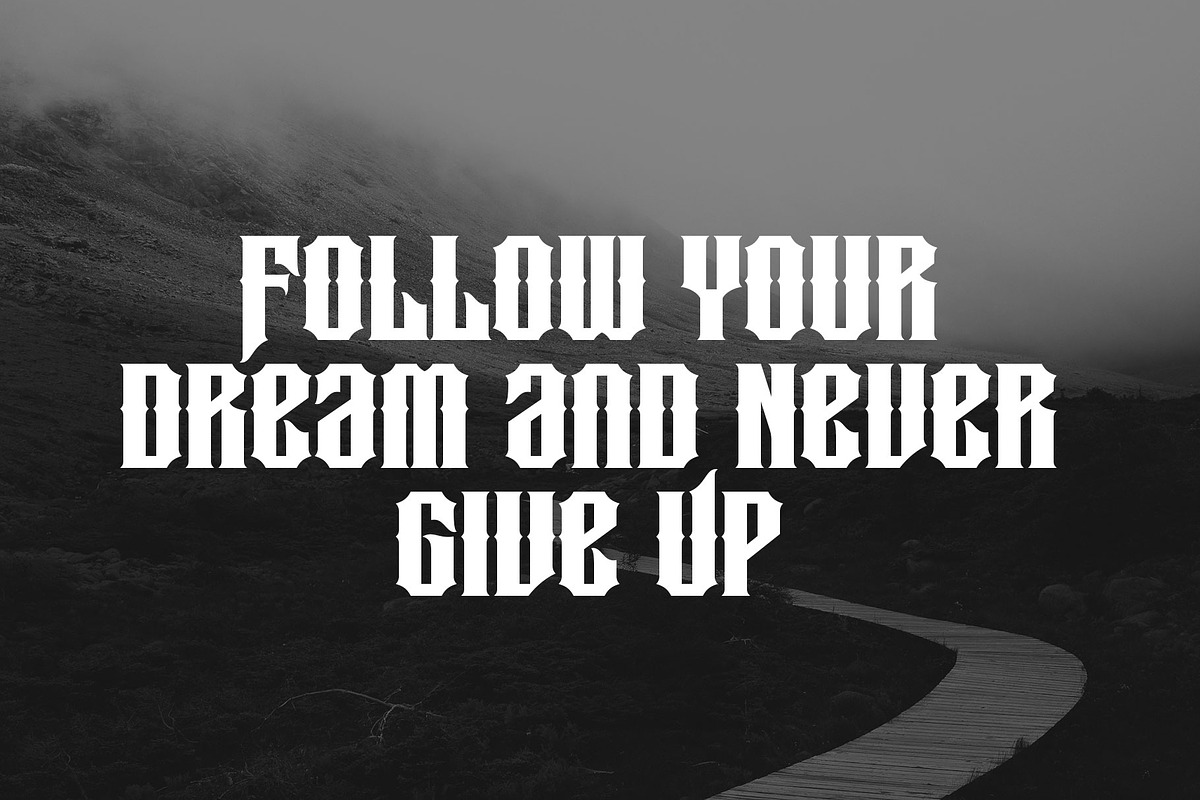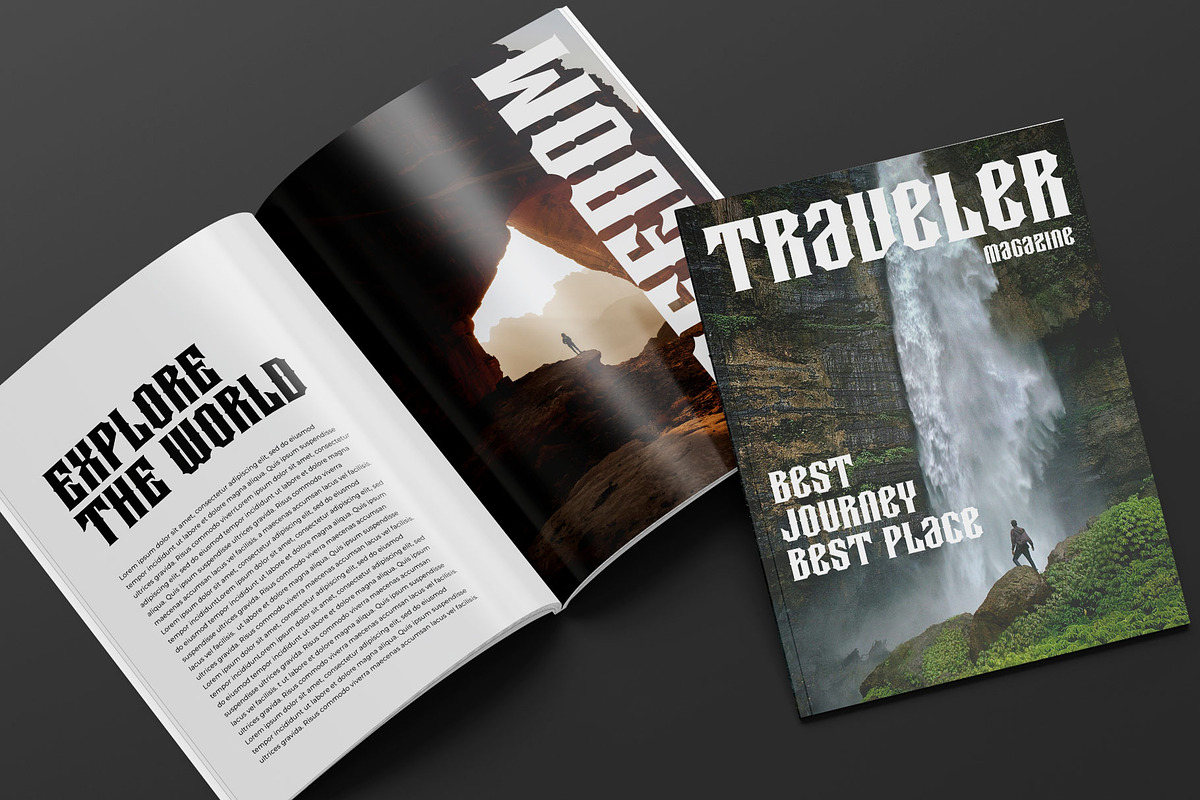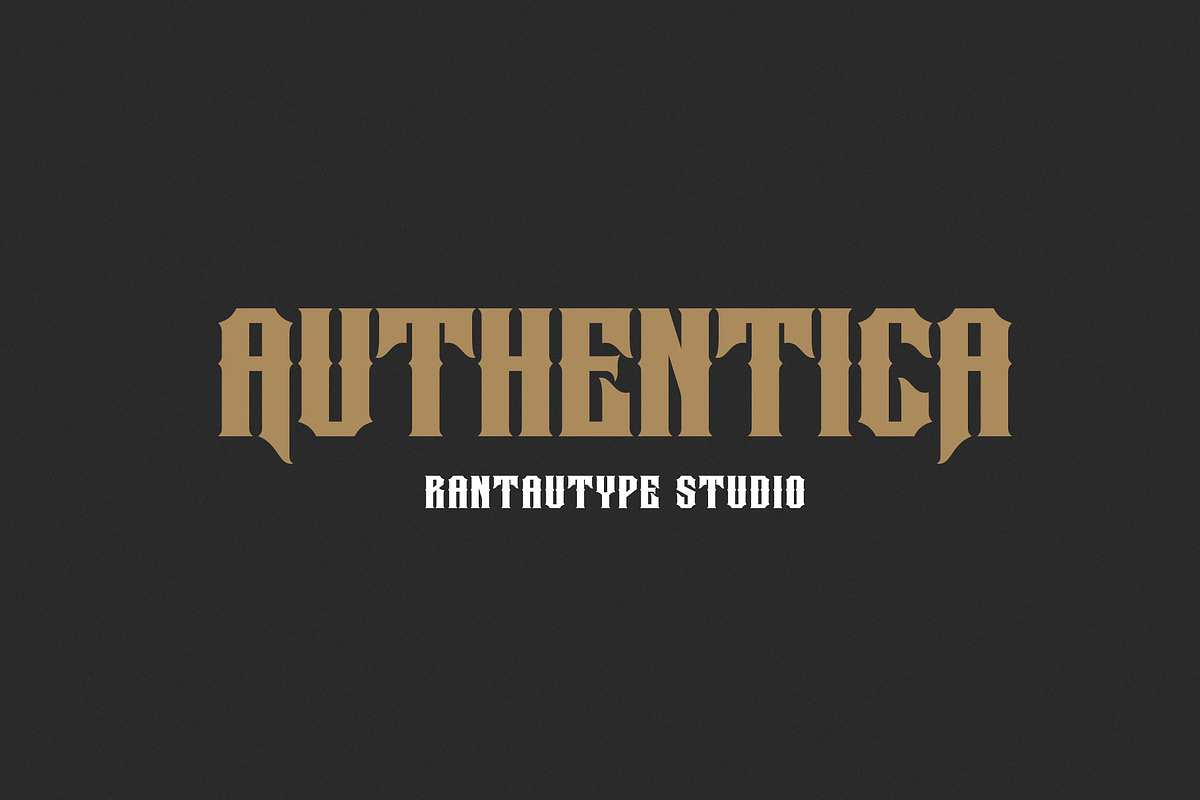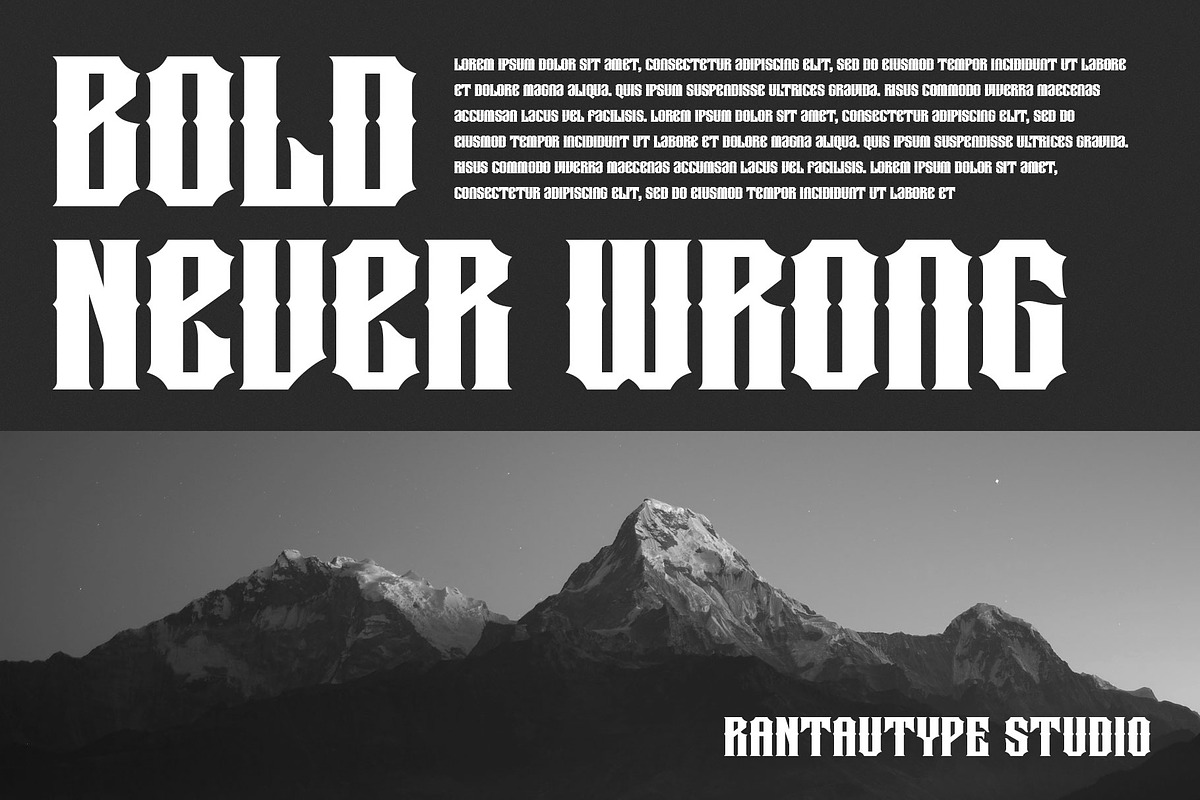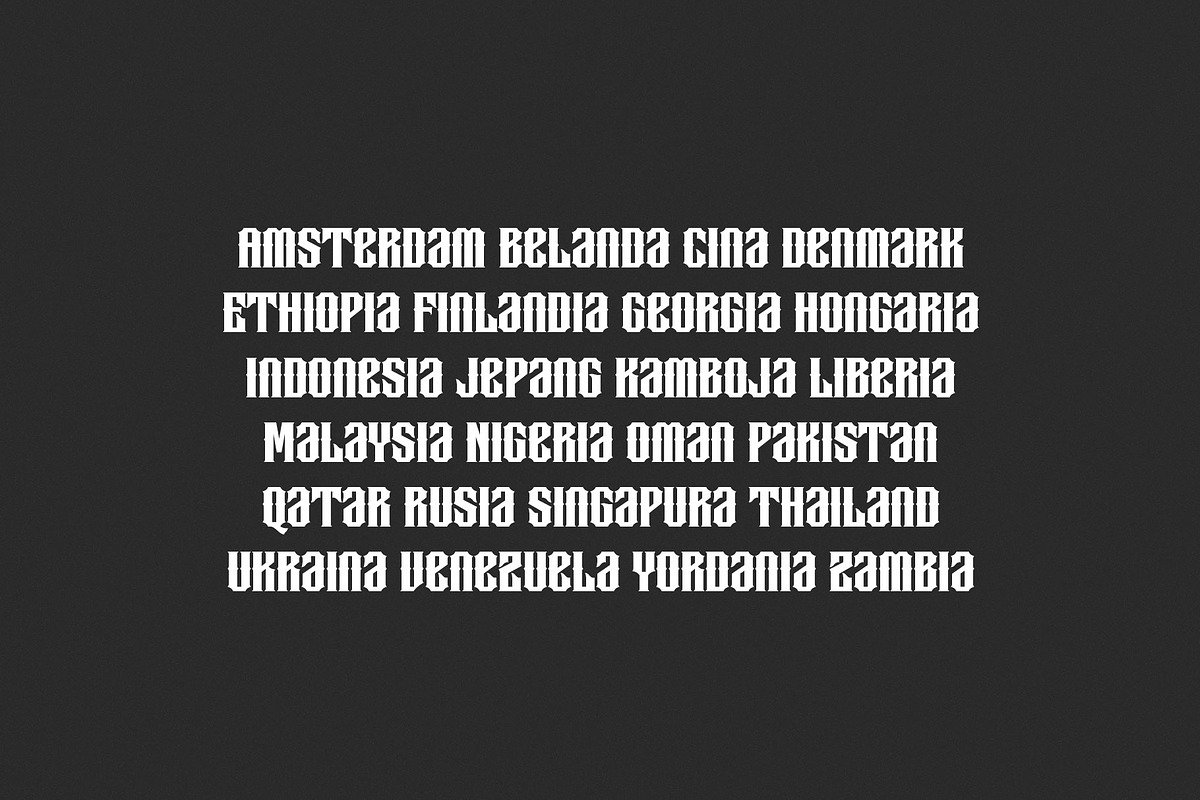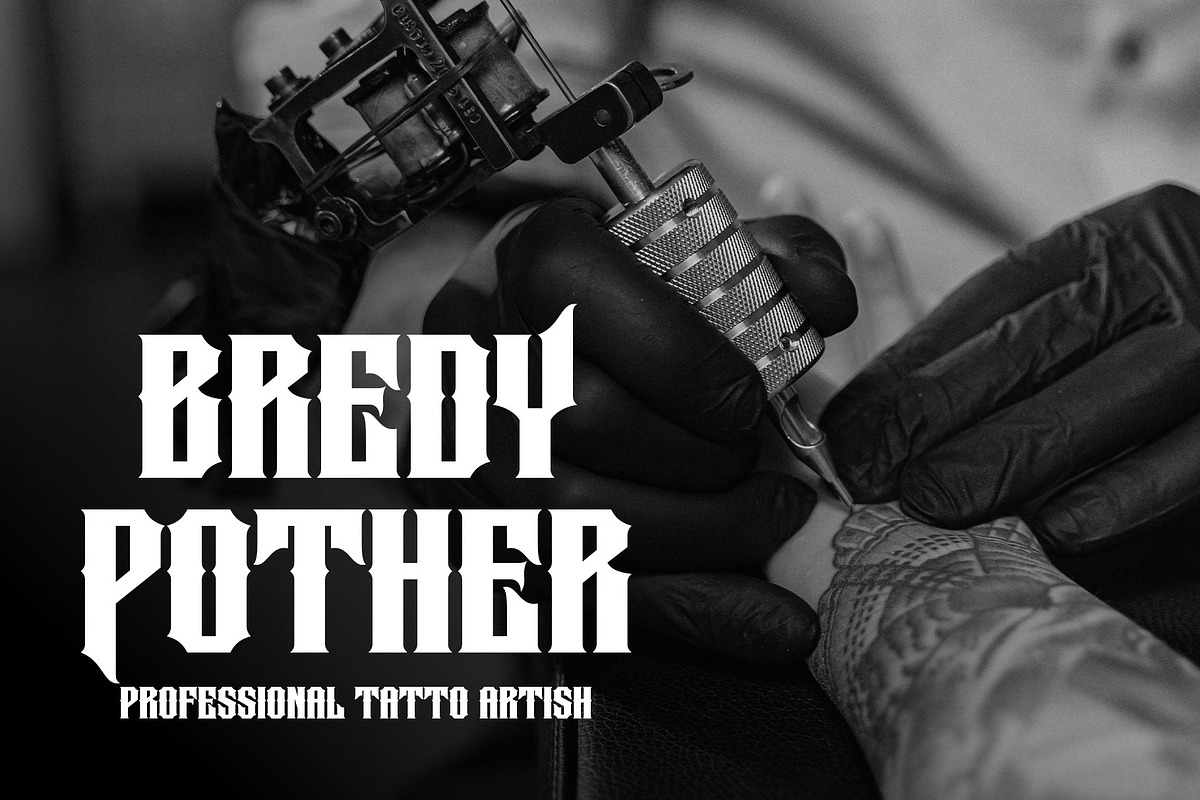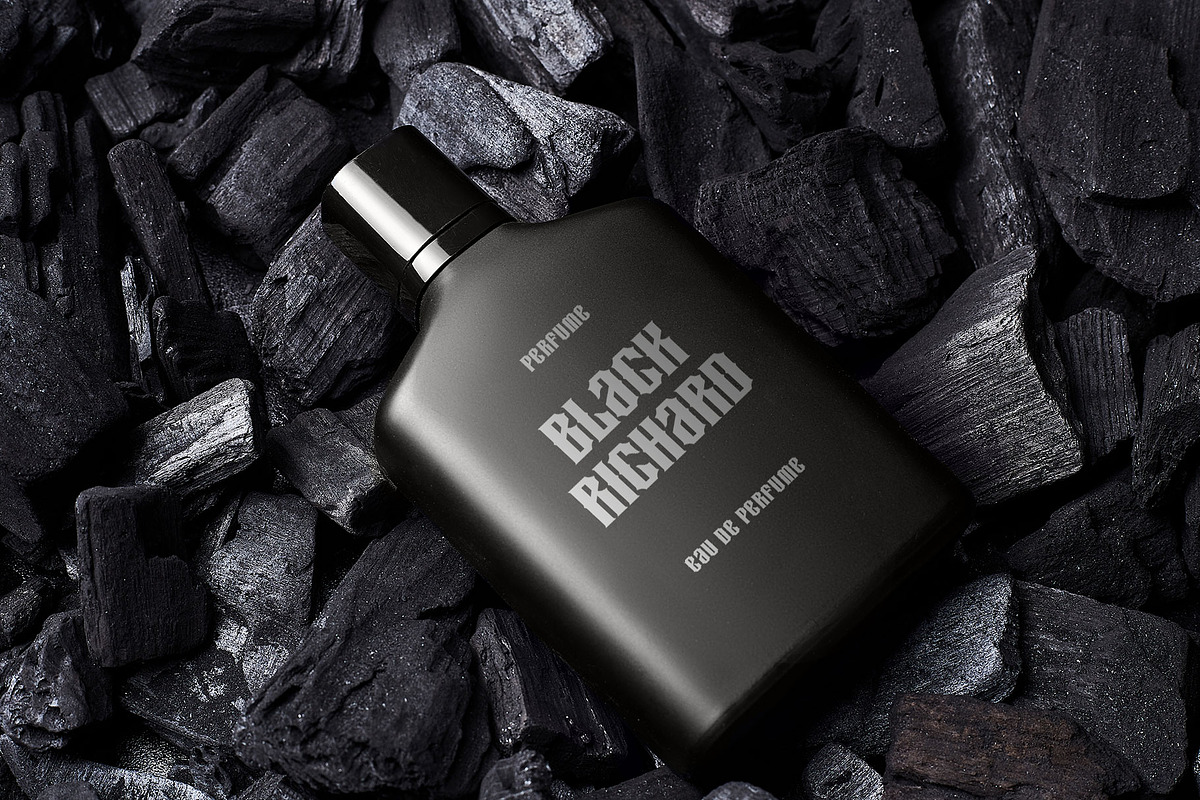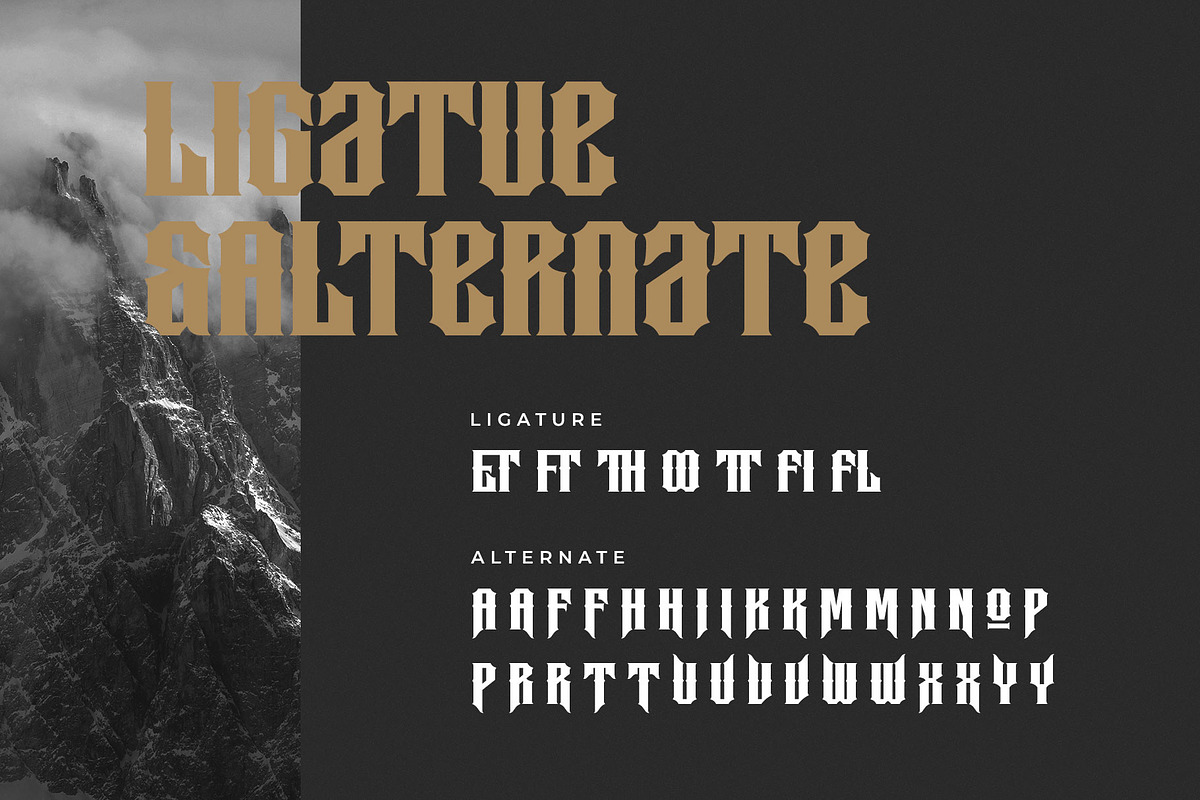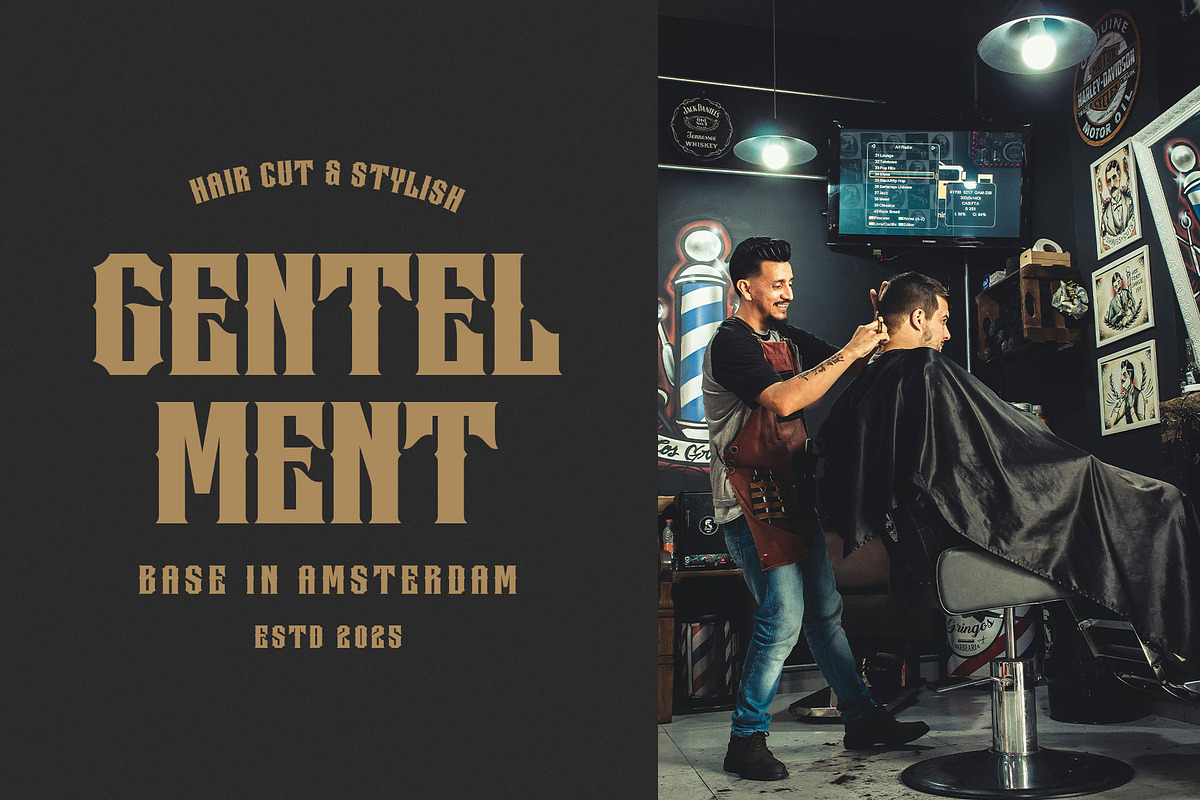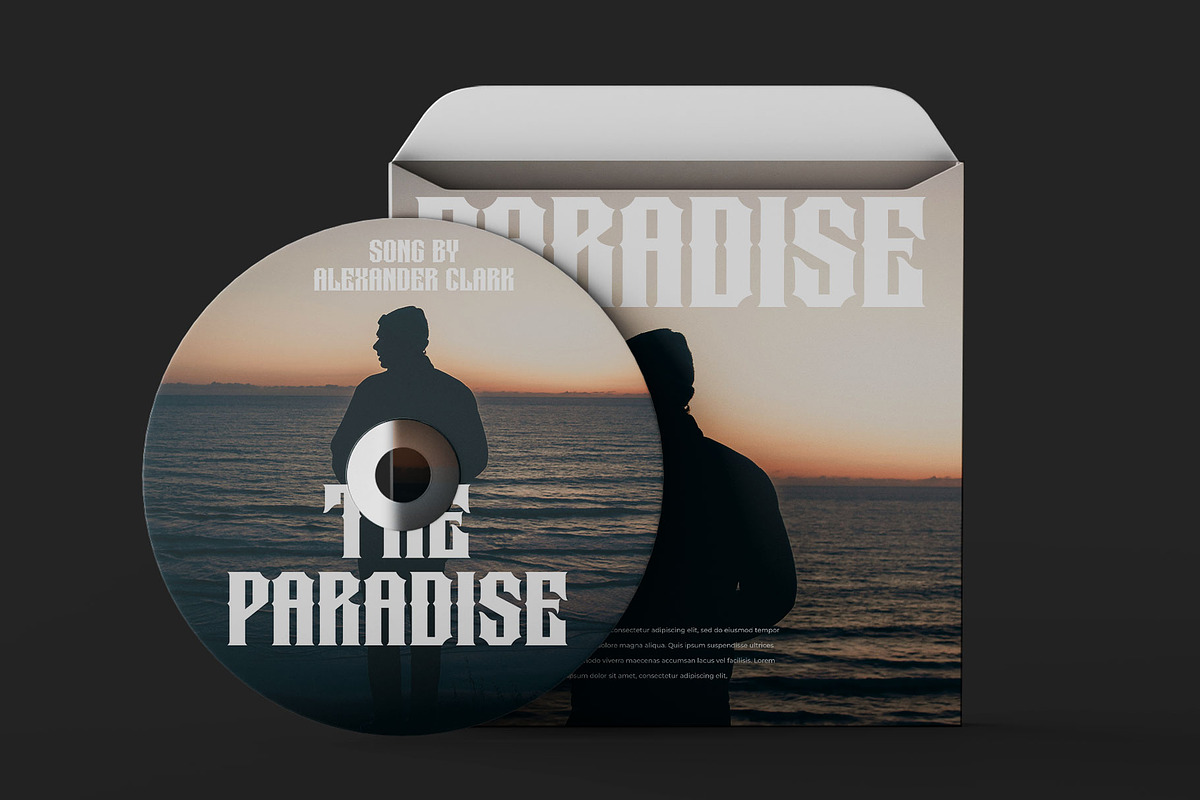
Gurend Gothic Font
Gurend is gothic font captures a dramatic and historic spirit, inspired by medieval manuscripts and classic blackletter typography. Gurend is a perfectly choice for any creative endeavor, creating, modern, lifestyle design such as logotype, title, cover, branding, invitations, wedding designs, display and magazine, social media posts, advertisements, printed quotes, product packaging, corporate brand, product designs, labels, photography, watermarks, special events and any other project with gothic touch.
- Alternate and ligature